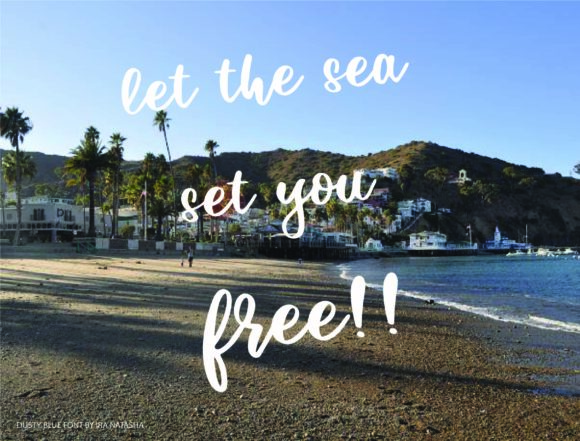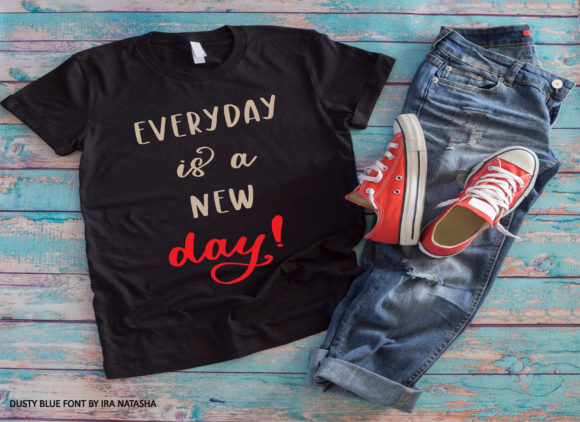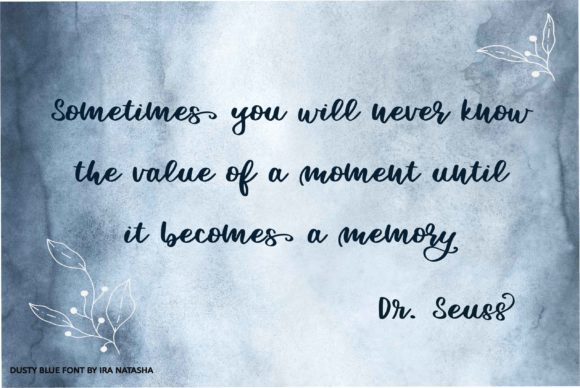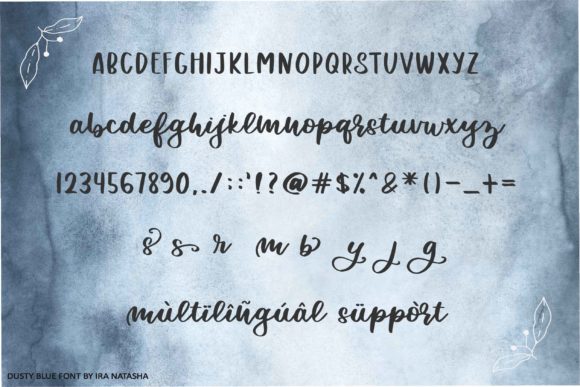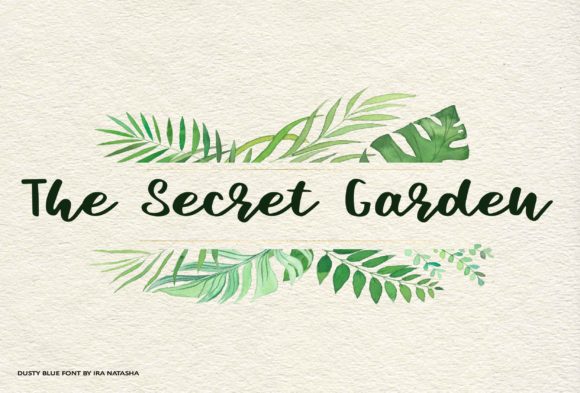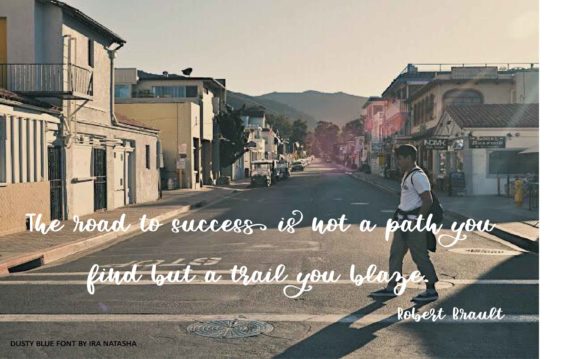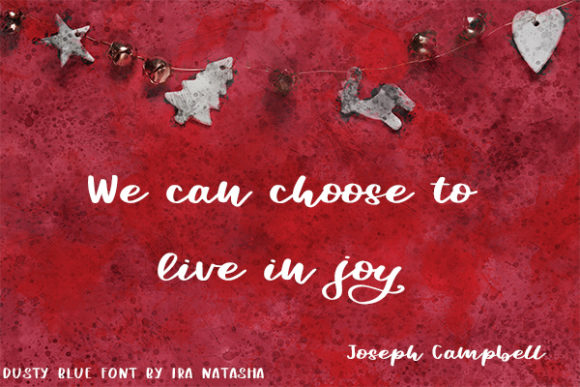
Dusty Blue Font
About Dusty Blue Font
Dusty Blue is a smooth handwritten font. It is perfect for logos, greeting cards, packaging, branding and much more!